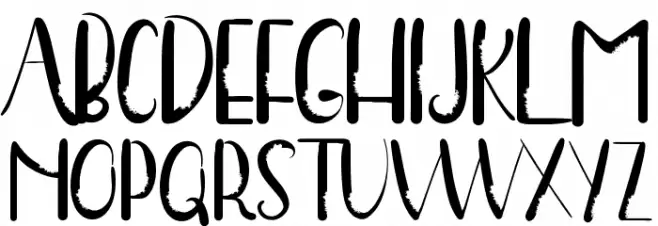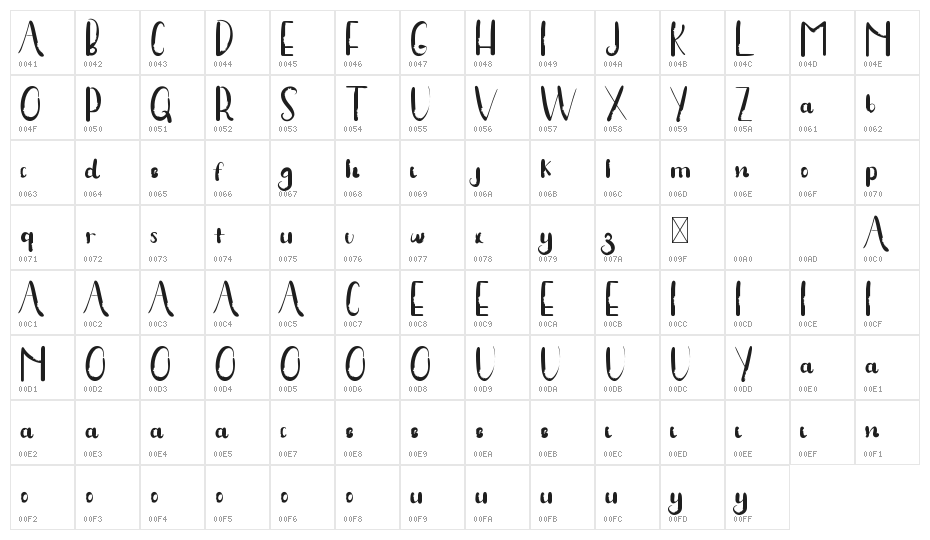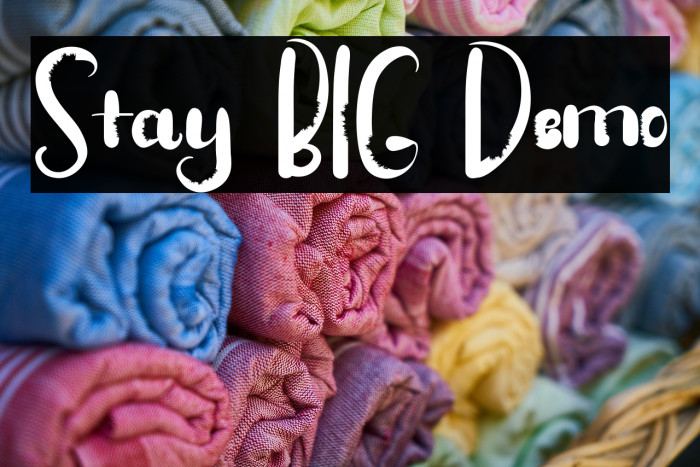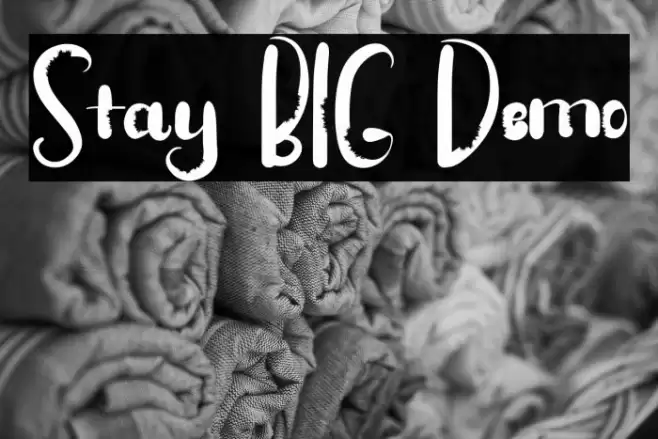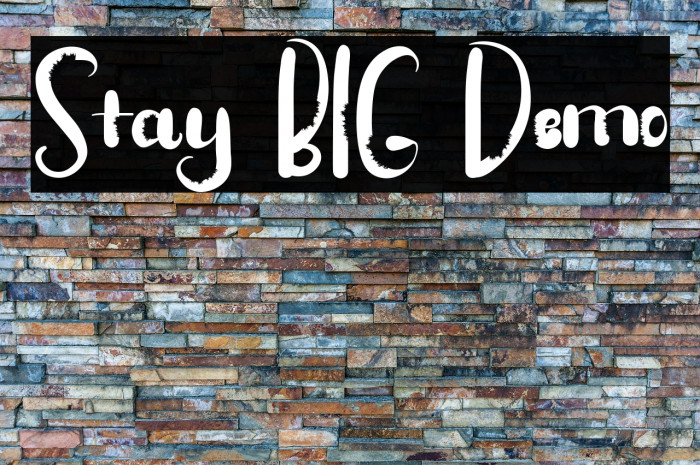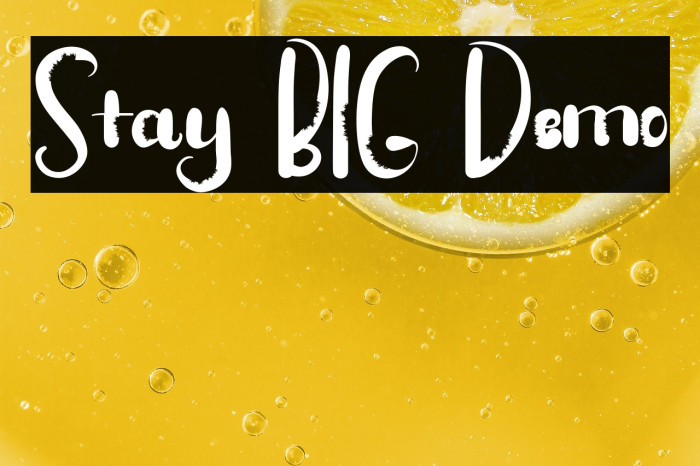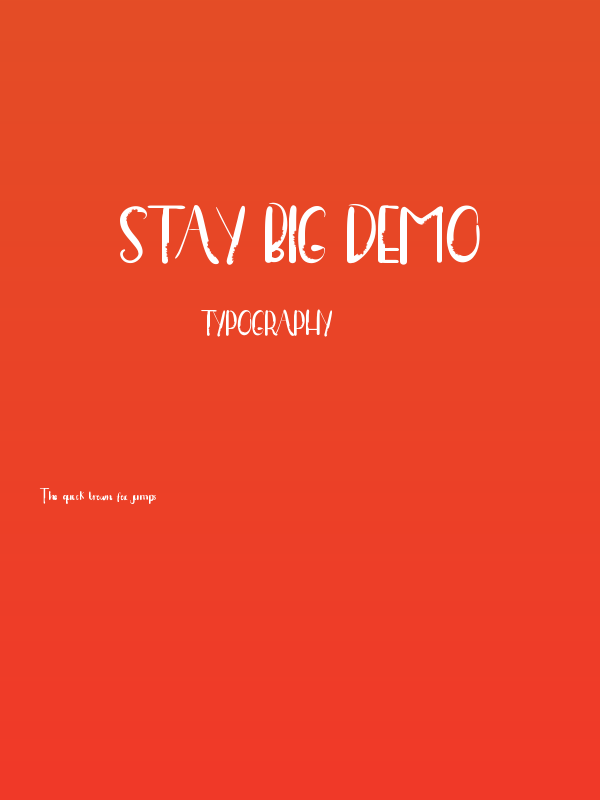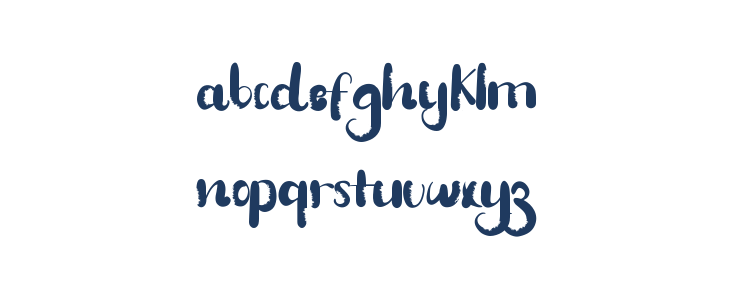
Stay BIG Demo Font
Stay BIG Demo Description
This font features a bold and expressive design, characterized by its brush-like strokes and dynamic flow. The uppercase letters have a tall and slender appearance, with some characters exhibiting unique, artistic flair, such as the elongated tails and varying stroke widths. The lowercase letters maintain a cohesive style, offering a playful yet sophisticated look. The numbers and special characters are crafted with the same attention to detail, ensuring consistency throughout. This font's distinctive style makes it stand out, ideal for creative and eye-catching designs.